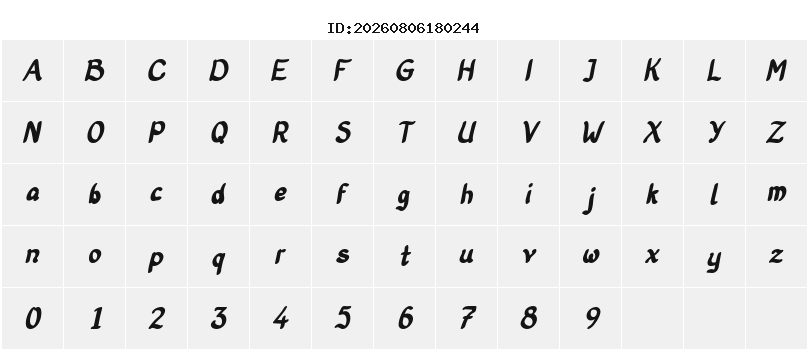
• Font Name: Old Story
• Designer: darwinoo
About Old Story.ttf
Old Story.ttf is a modern, elegant sans-serif font designed for ultimate readability and visual harmony. Perfect for branding, headlines, web design, and print materials.